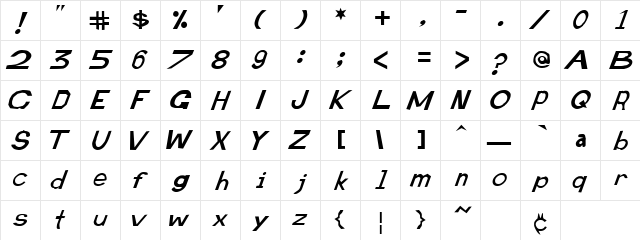
Retardo Italic 1
Design Context for Retardo Italic Typeface
Retardo Italic offers clean, dependable letterforms without strong stylistic allegiance, making it a practical choice for designers who need flexibility. The slanted form adds forward momentum and visual energy.